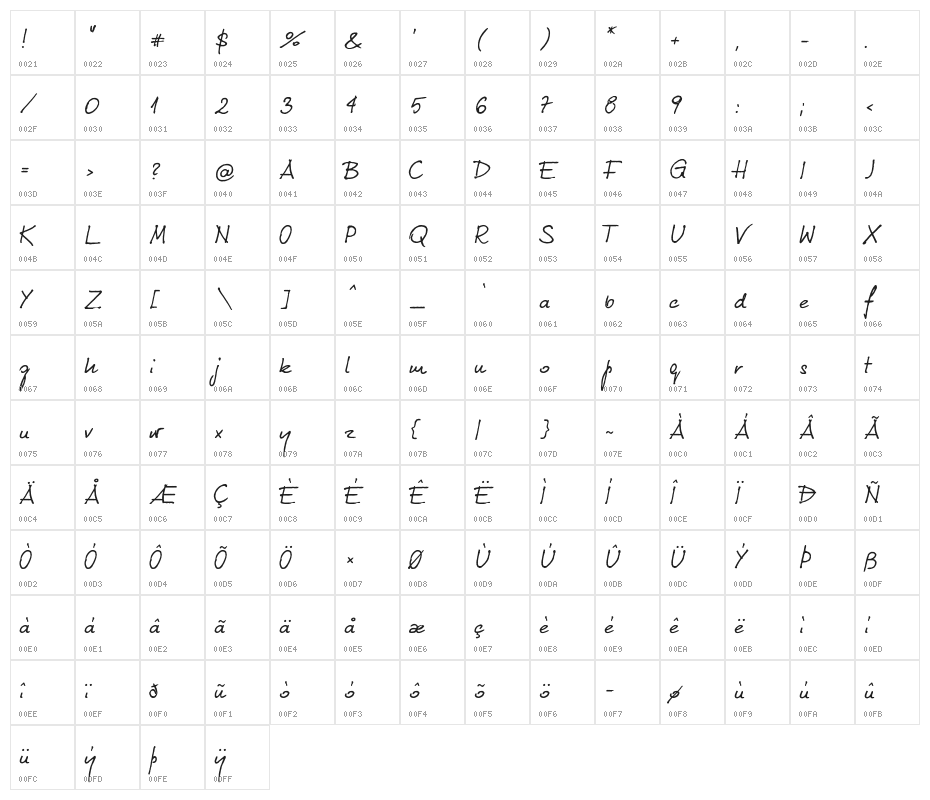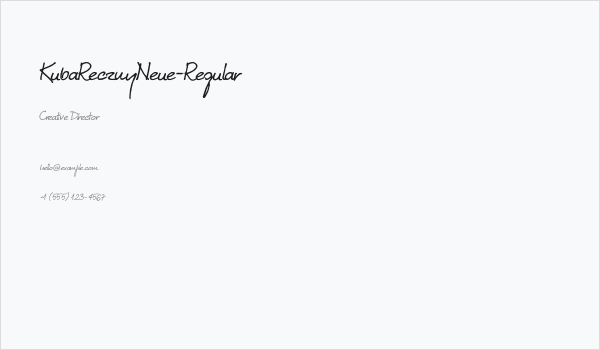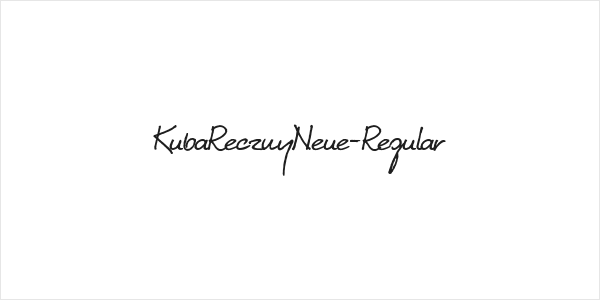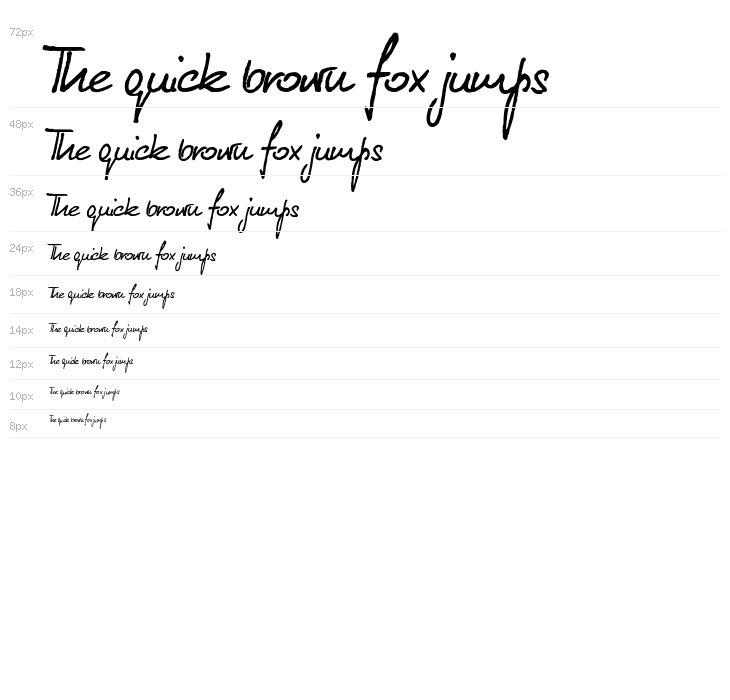
KubaRecznyNeue-Regular Font
KubaRecznyNeue-Regular Description
This font features a dynamic and expressive handwritten style, characterized by its fluid and irregular strokes that mimic natural handwriting. The uppercase letters are bold and slightly slanted, giving a sense of movement and energy. The lowercase letters maintain a consistent flow, with some characters extending below the baseline, adding to the casual and informal appearance. The numerals are distinct and easy to read, while the special characters blend seamlessly with the overall style. This font's unique personality makes it suitable for projects that require a personal touch.
| Overall Style | Casual, Expressive |
| Use Case | Logos, Invitations, Creative projects |
| Proposed Projects | Ideal for personal invitations, greeting cards, branding projects, and creative posters. |